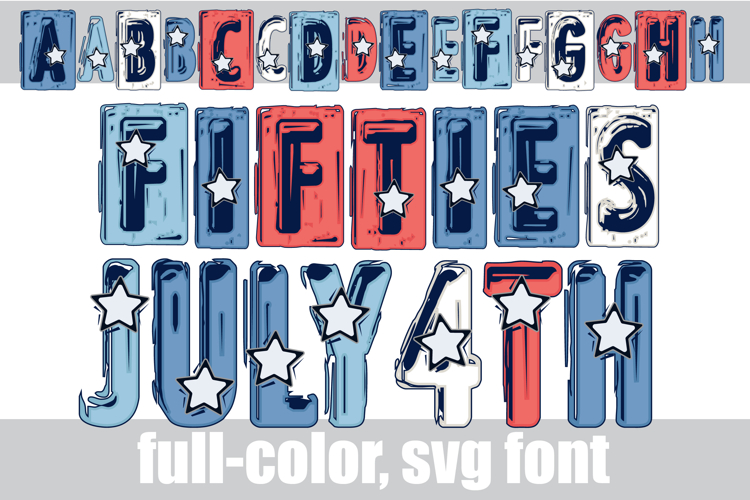
Fifties July 4th Too Color Font
This full-color, metal imprint style font is in a pastel patriotic color palette. There is an alt case of additional colors of each letter that you can access through your system's character map.